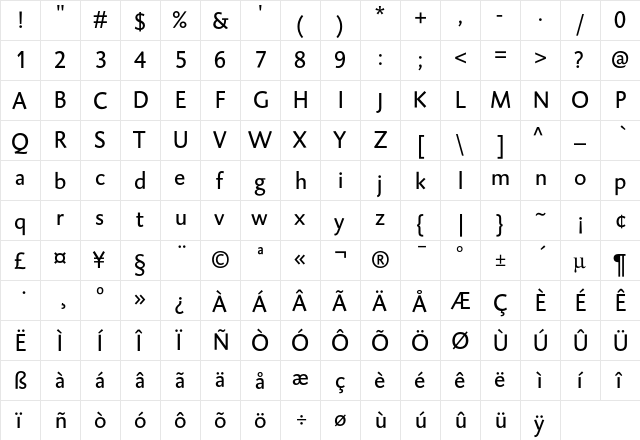
DTLCaspariT Regular
Design Context for DTLCaspariT Typeface
DTLCaspariT takes a measured approach to typography — its balanced proportions and neutral character make it a reliable workhorse for both digital and print work.